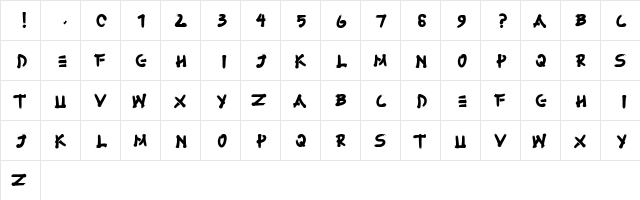
Fujimaru Regular
| Designer | Imam Nurrahmat |
Design Context for Fujimaru Typeface
Fujimaru is a composed and adaptable typeface that performs quietly and consistently across a wide range of design contexts.